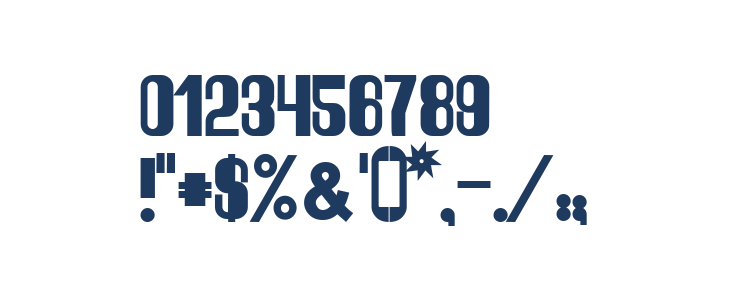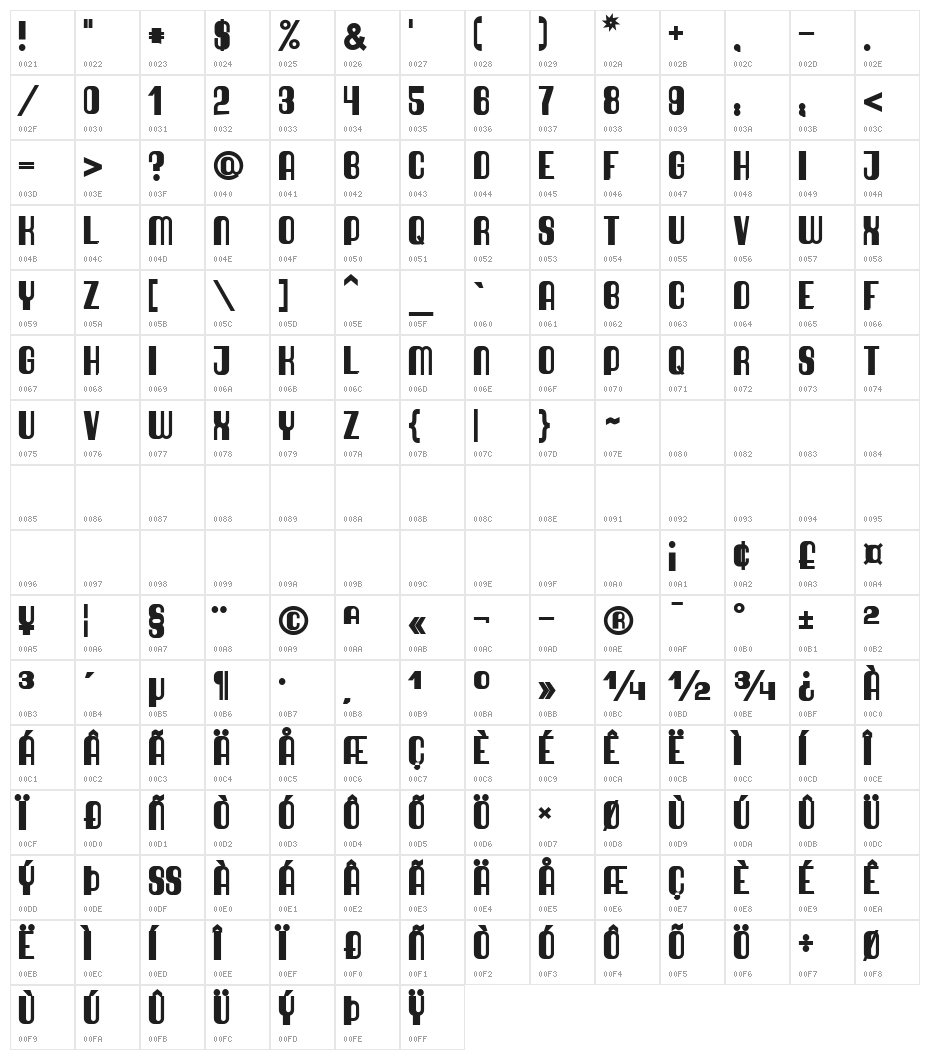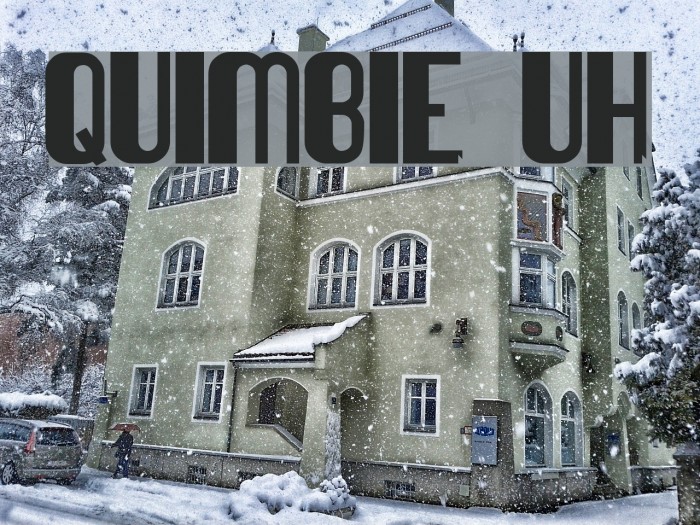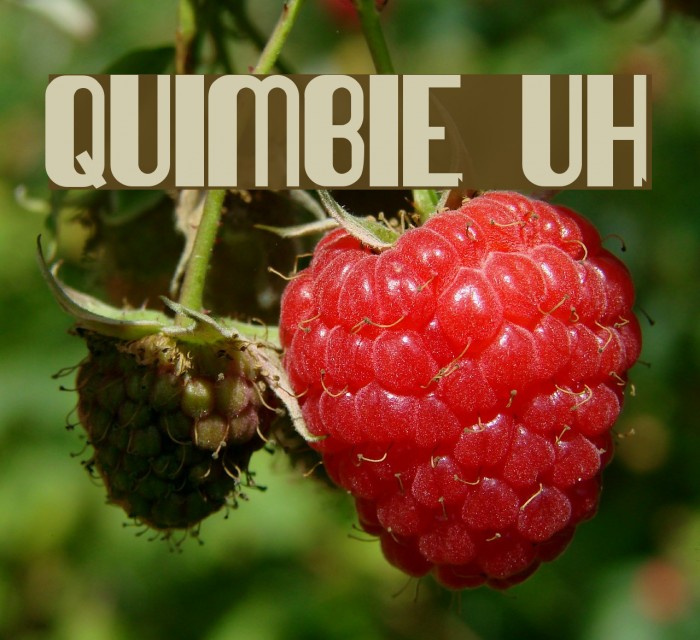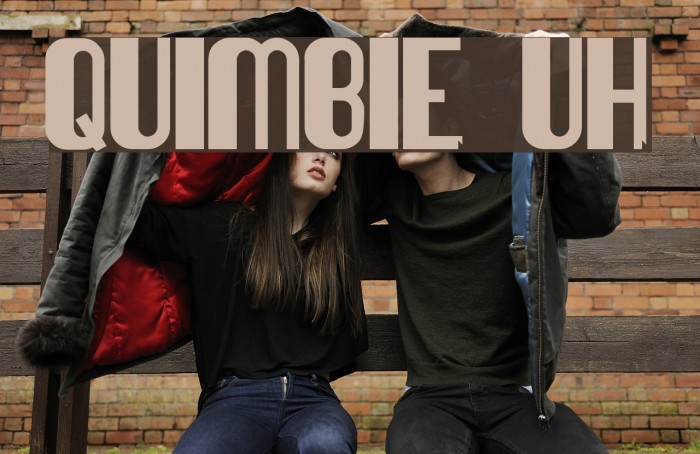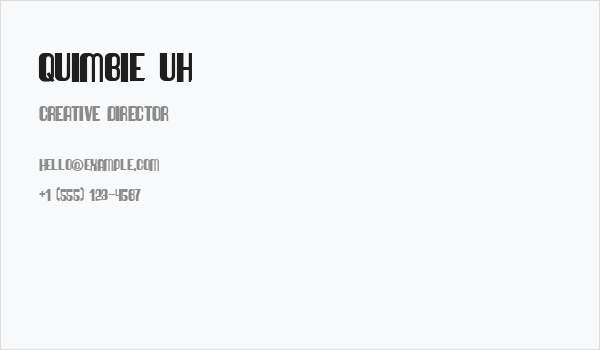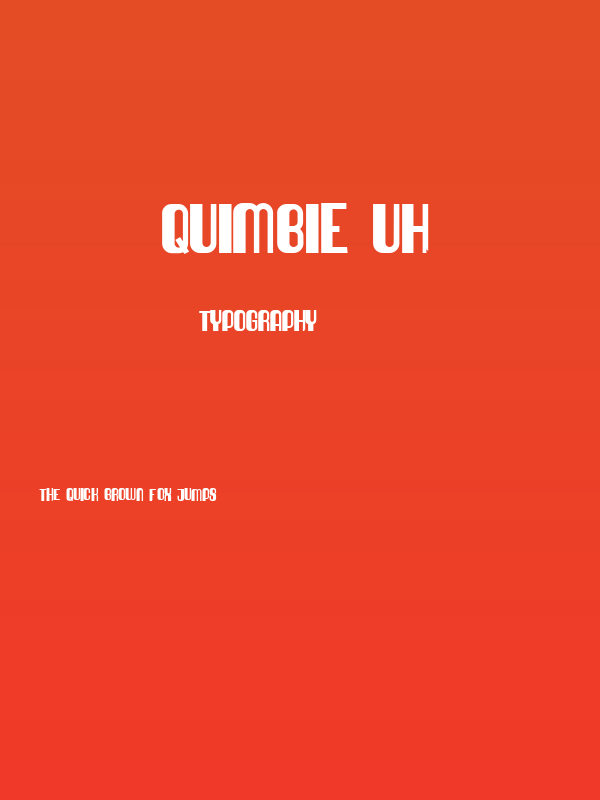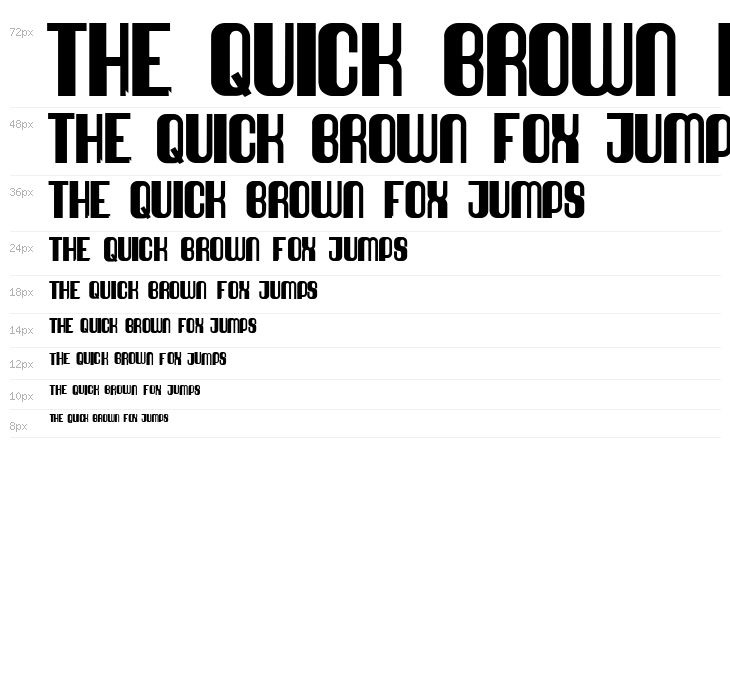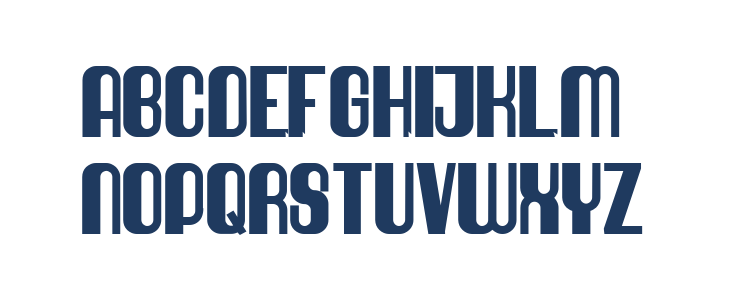
Quimbie UH Font
Quimbie UH Description
This font features a bold and striking design with a strong geometric influence. The characters are tall and narrow, giving a condensed appearance that is both modern and impactful. The uppercase letters have a uniform height, while the lowercase letters maintain a consistent style, enhancing readability. The numbers are equally bold, ensuring they stand out prominently. Special characters are designed with the same boldness, making them suitable for attention-grabbing designs. The overall style is suitable for projects that require a strong visual presence.